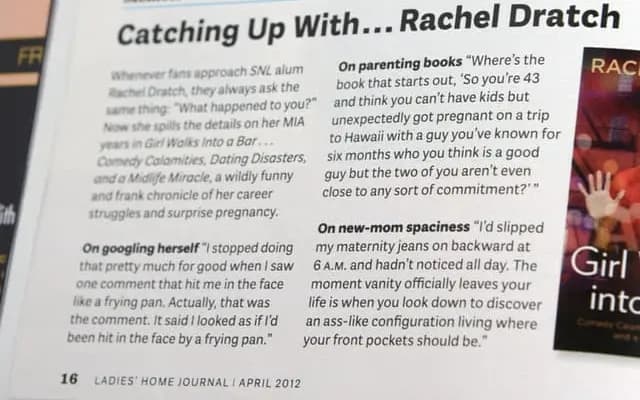
Plan Grotesque
A clean grotesque family from Typotheque offered in four weights with italics, plus a condensed subfamily for tighter settings.
Plan Grotesque runs from Light to Bold in both upright and italic, with a matching Condensed subfamily that doubles the style count for space-constrained layouts. The design sits in the neutral grotesque tradition, prioritising readability and utility over expressiveness. Individual styles are sold separately under city names, from Amsterdam to Hong Kong, allowing selective licensing.
The typeface is explicitly named a grotesque and presents the hallmarks of the genre: upright, low-contrast strokes with a neutral, functional character suited to both text and display use.